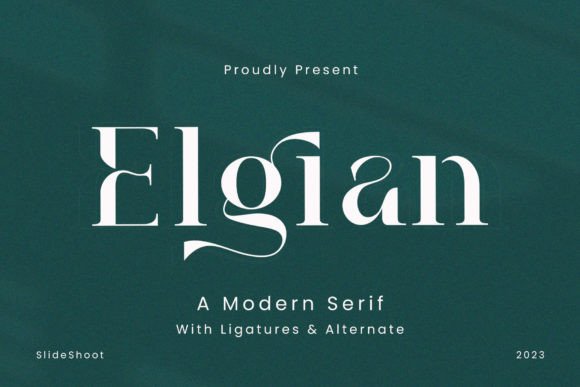
Are you looking to take your design game to the next level? Look no further than Elgian Font, the perfect addition to any high-end branding, packaging, or exclusive design project. Created by Slide Shoot, this luxurious serif font exudes refinement and sophistication. With its refined serifs and elegant proportions, Elgian Font is sure to capture the attention of any viewer.
Elgian Font is more than just a font - it's a statement. Its regal presence and exclusive feel will set your designs apart from the competition. Whether you're designing a logo, brochure, or website, Elgian Font adds a touch of luxury that can't be ignored.